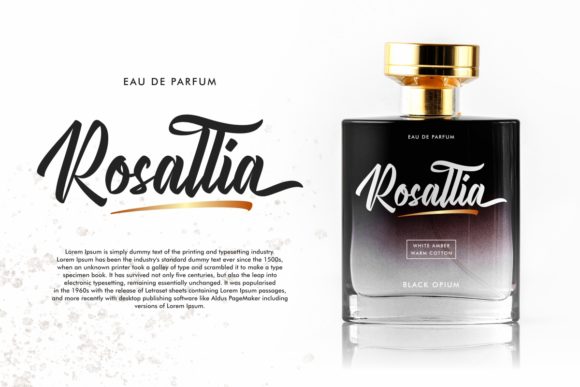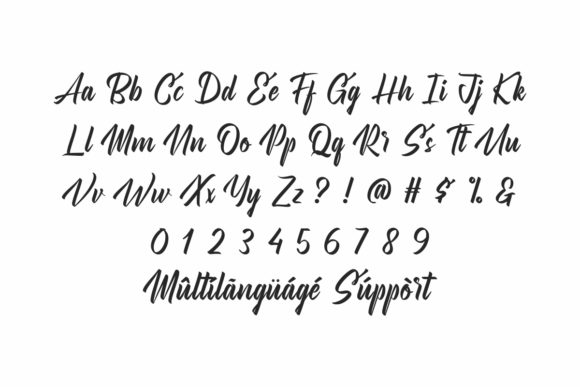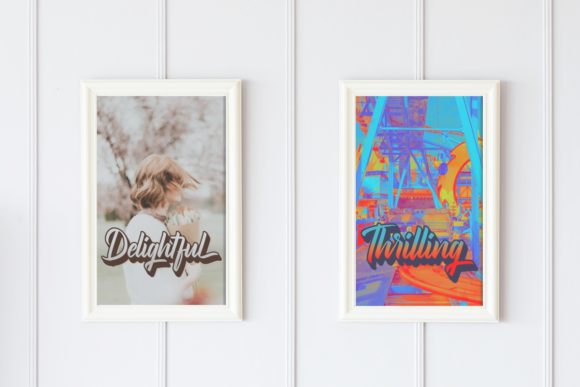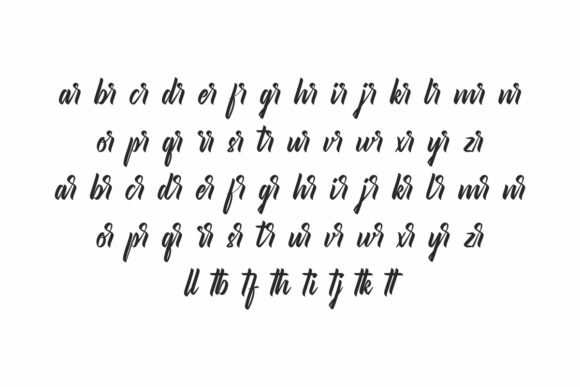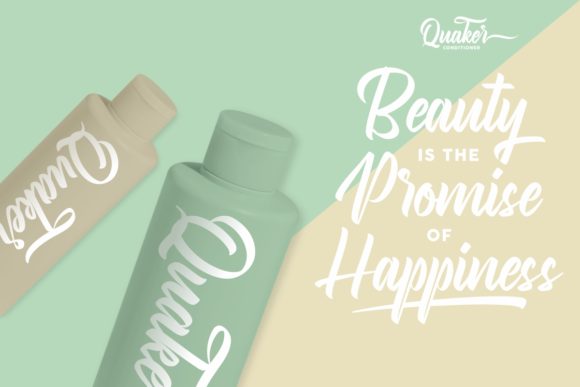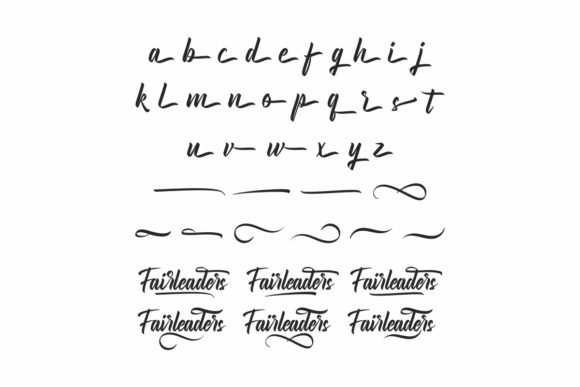
Introduction to Fairleaders Font
Fairleaders is a classic and flowing handwritten font.
Add it to your most creative ideas and notice how it makes them come alive This font is PUA encoded which means you can access all of the glyphs and swashes with ease.